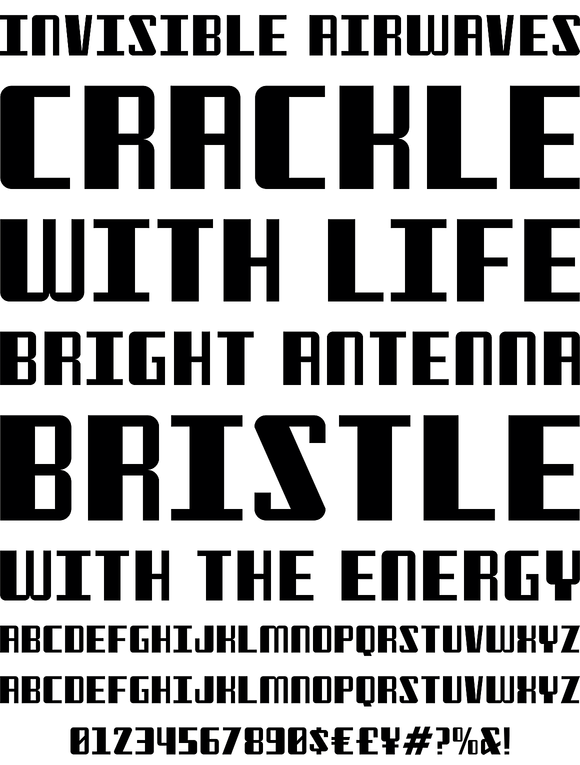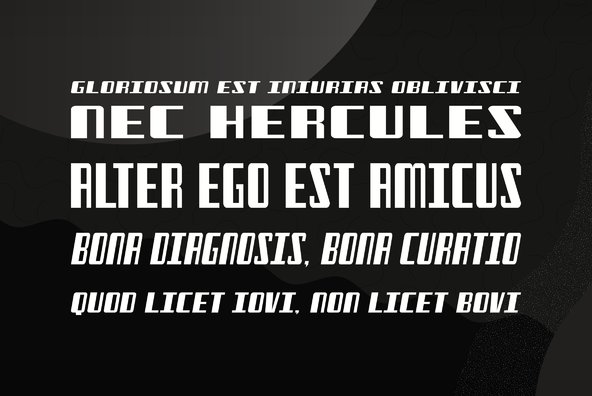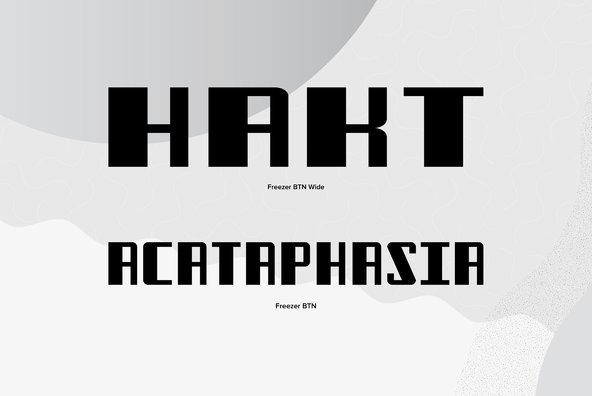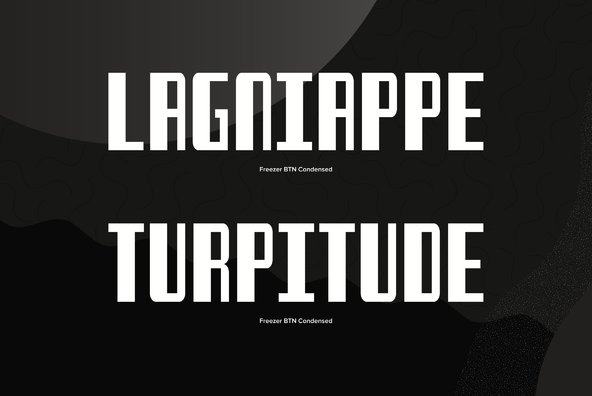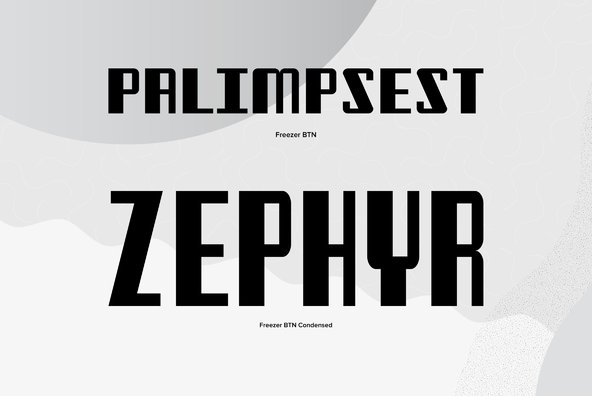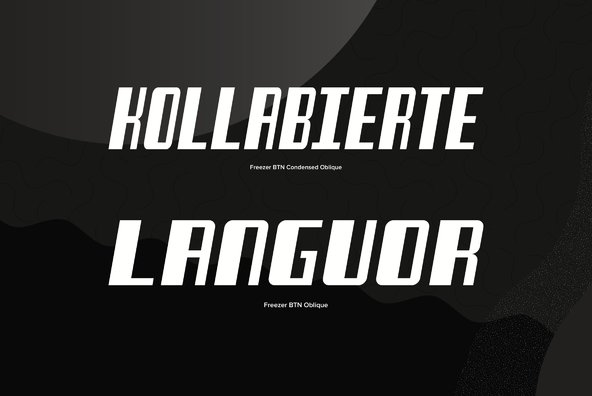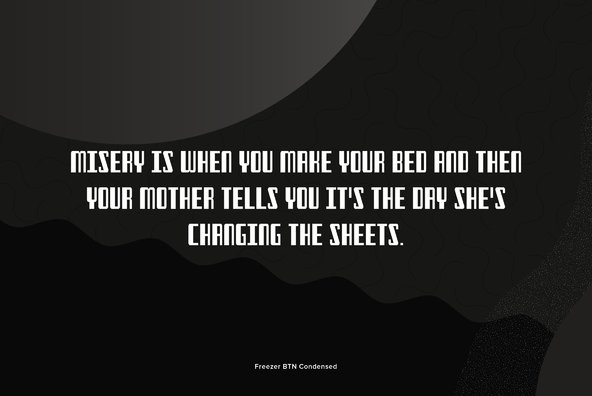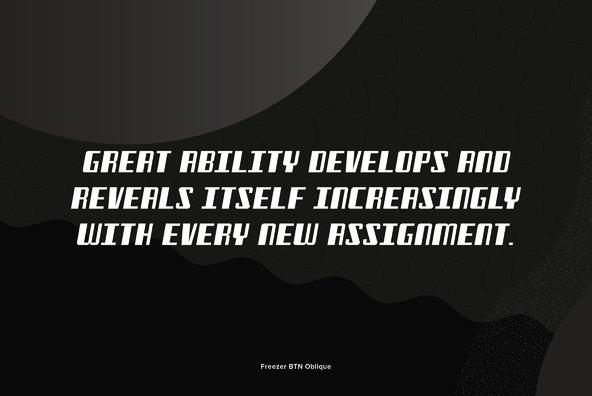
Freezer
Foundry: Breaking The Norm
Freezer comes right from, you guessed it, a freezer! Inspired by the chrome lettering inside and out that let's the modern homemaker know where to put the butter, the vegetables, and meats, this vintage typeface has a clean 1930s feel and comes in a host of widths.